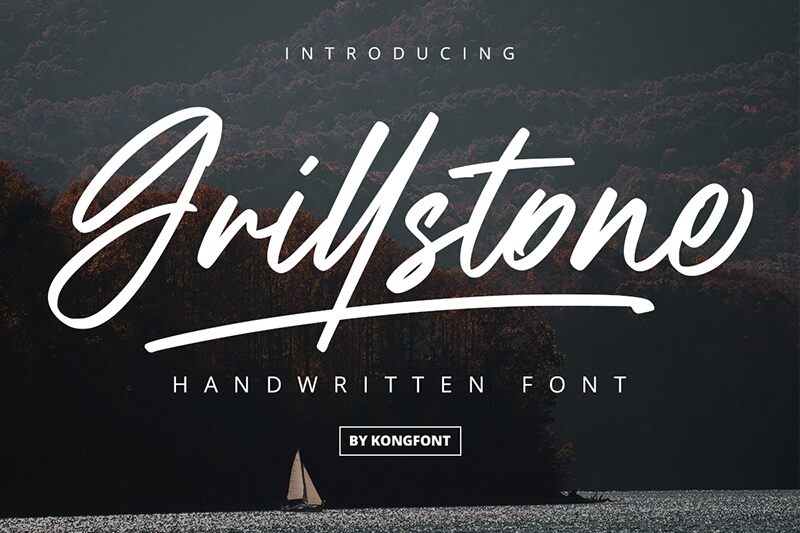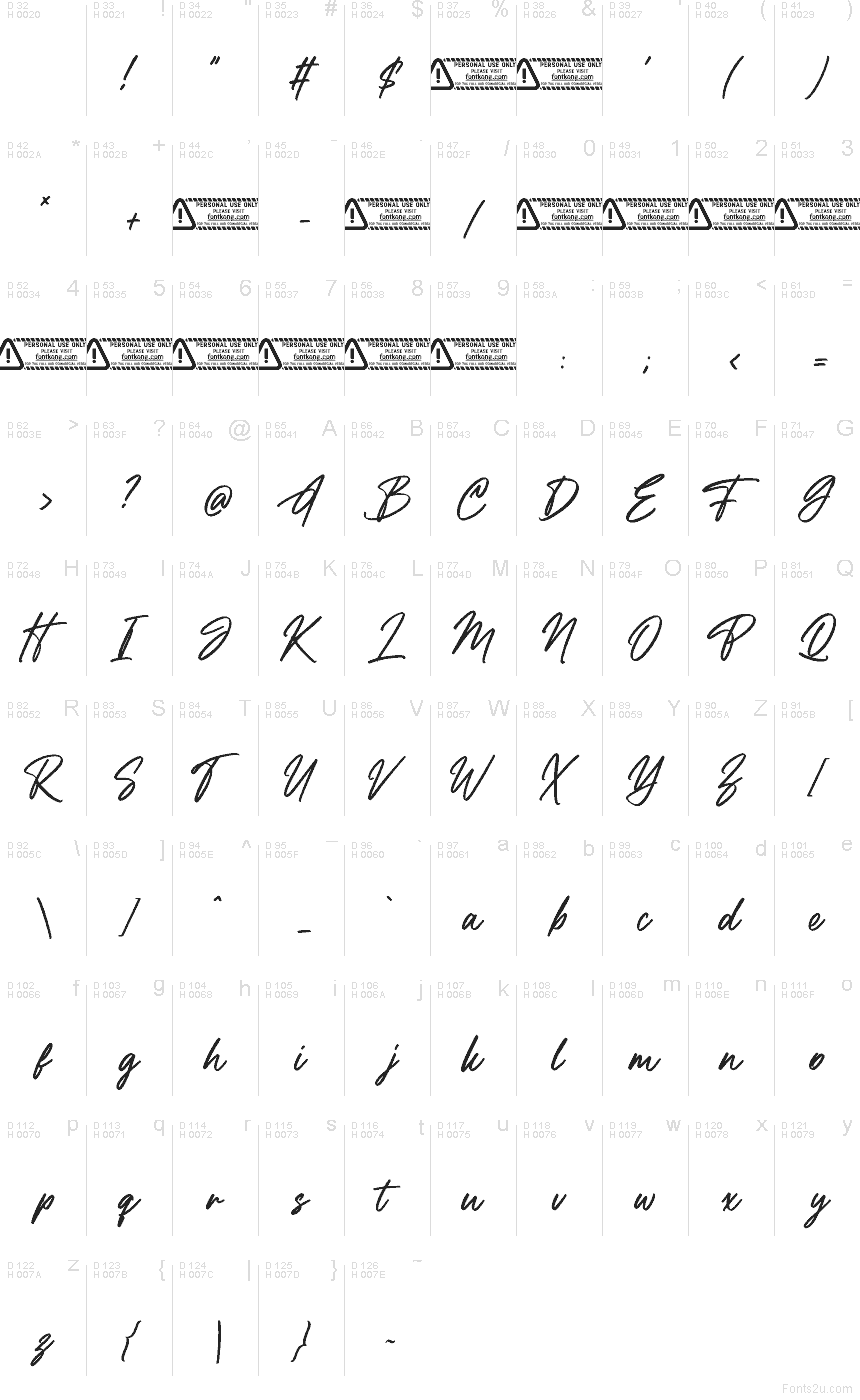
Grillstone font by Kong Font is a free handwritten script typeface that finally hits that sweet spot between casual and polished. Its smooth, slightly slanted strokes feel like quick ink on paper, but the letters stay clear and evenly spaced, so your words don’t dissolve into swirls. The strokes have just enough texture to feel human, giving headlines and names a confident, signature-like presence without losing readability.
Using Grillstone, you can give logos, product packaging, social media graphics, quote posts, greeting cards, and café menus a warm, branded feel in seconds. This free font shines when used large, where its inky curves can really breathe; pair it with a clean sans serif for body text to keep layouts grounded and easy to scan.